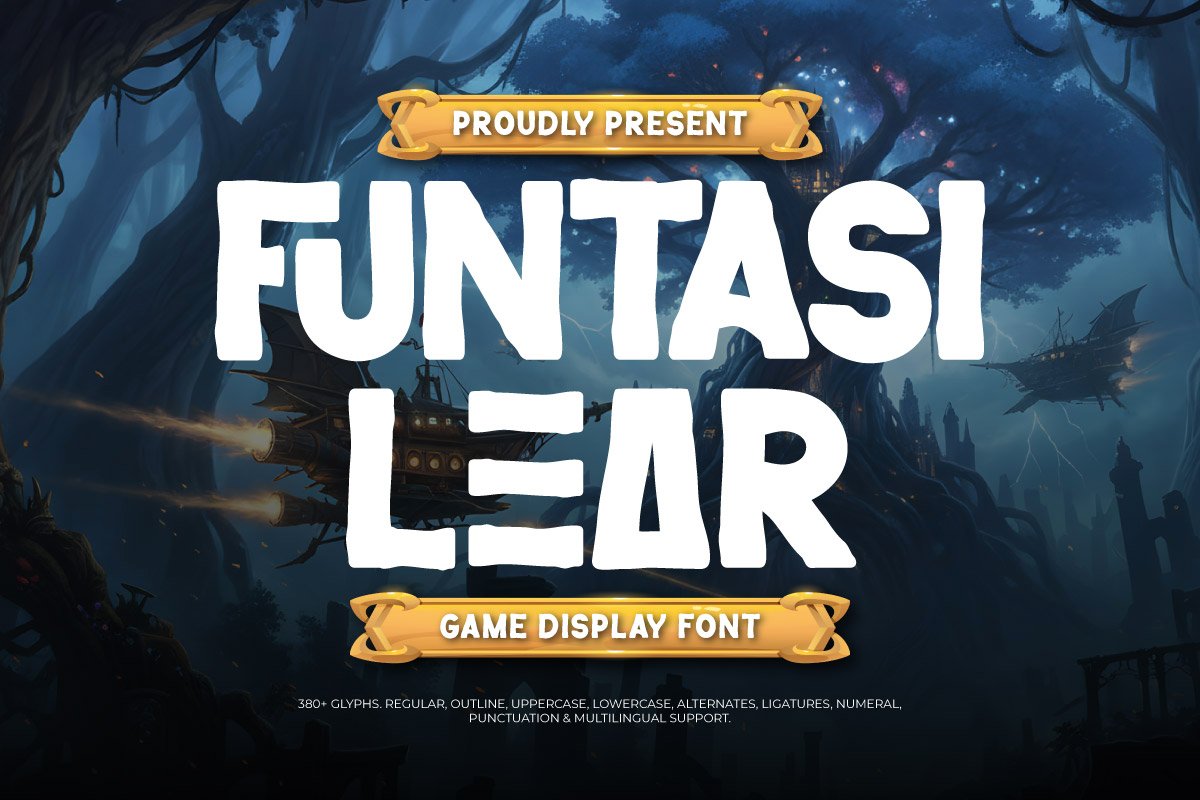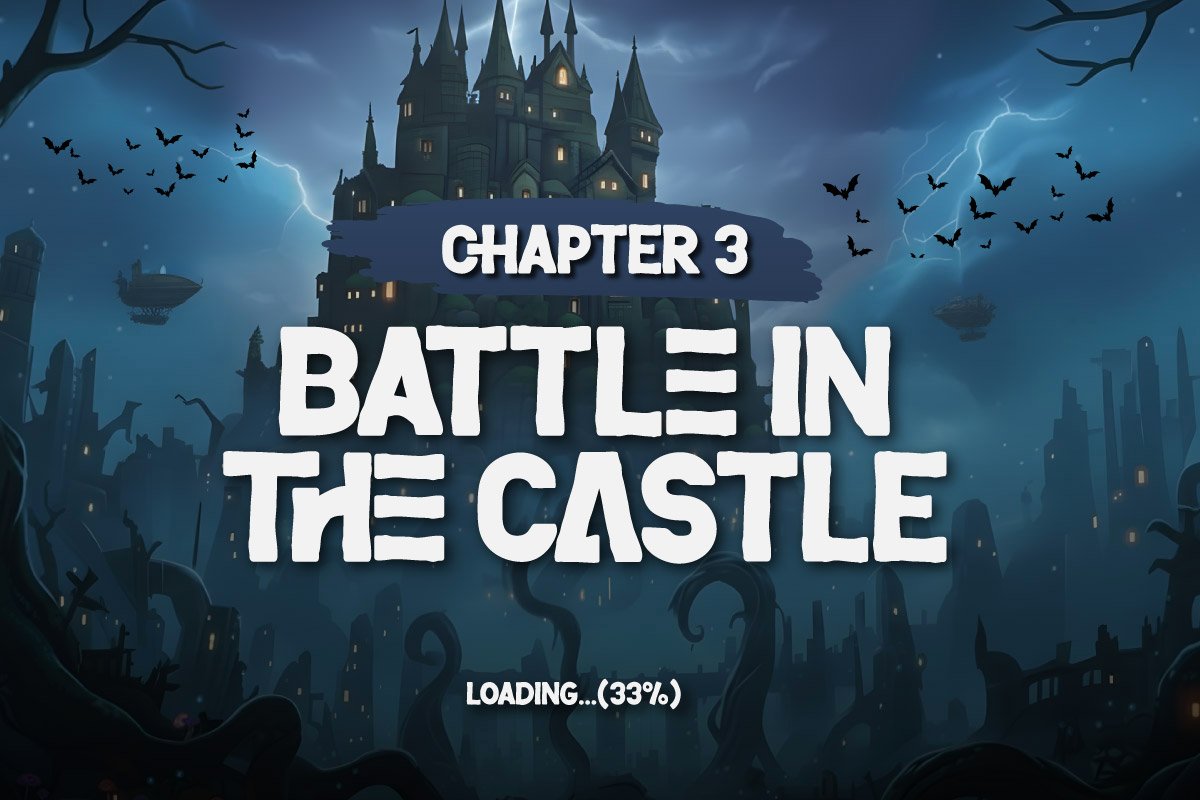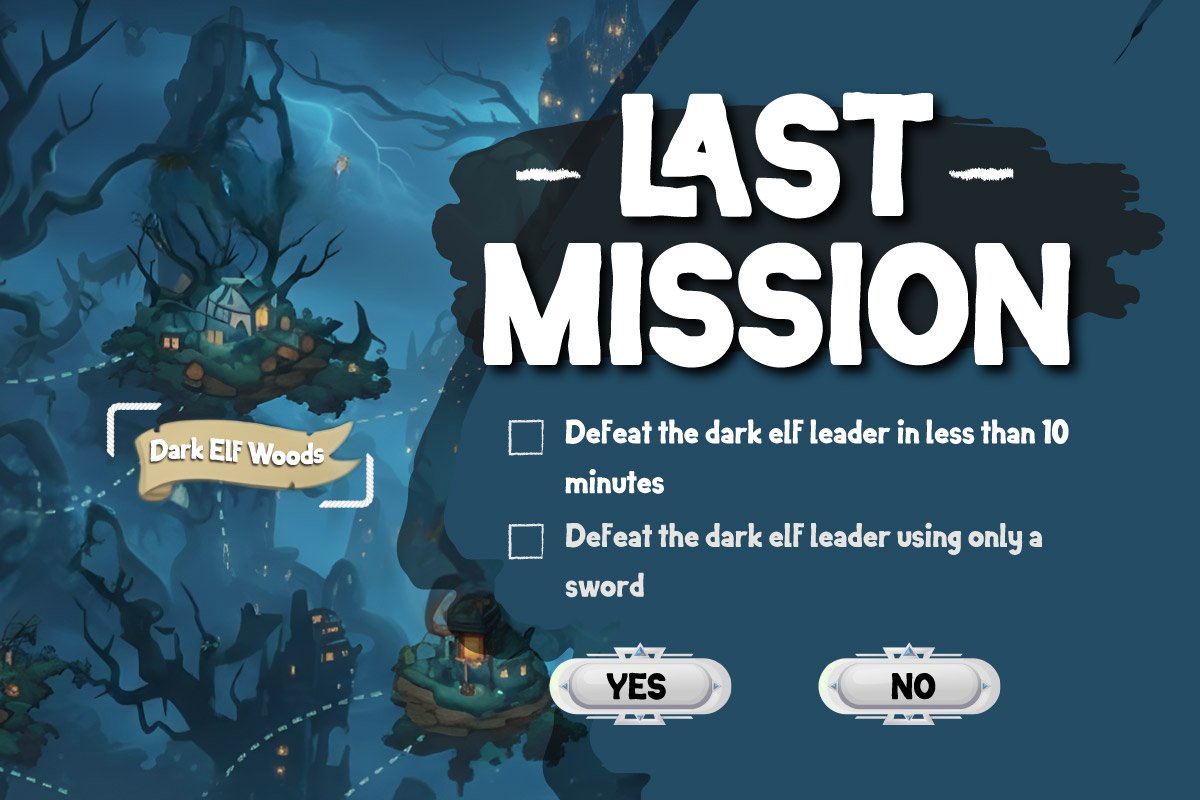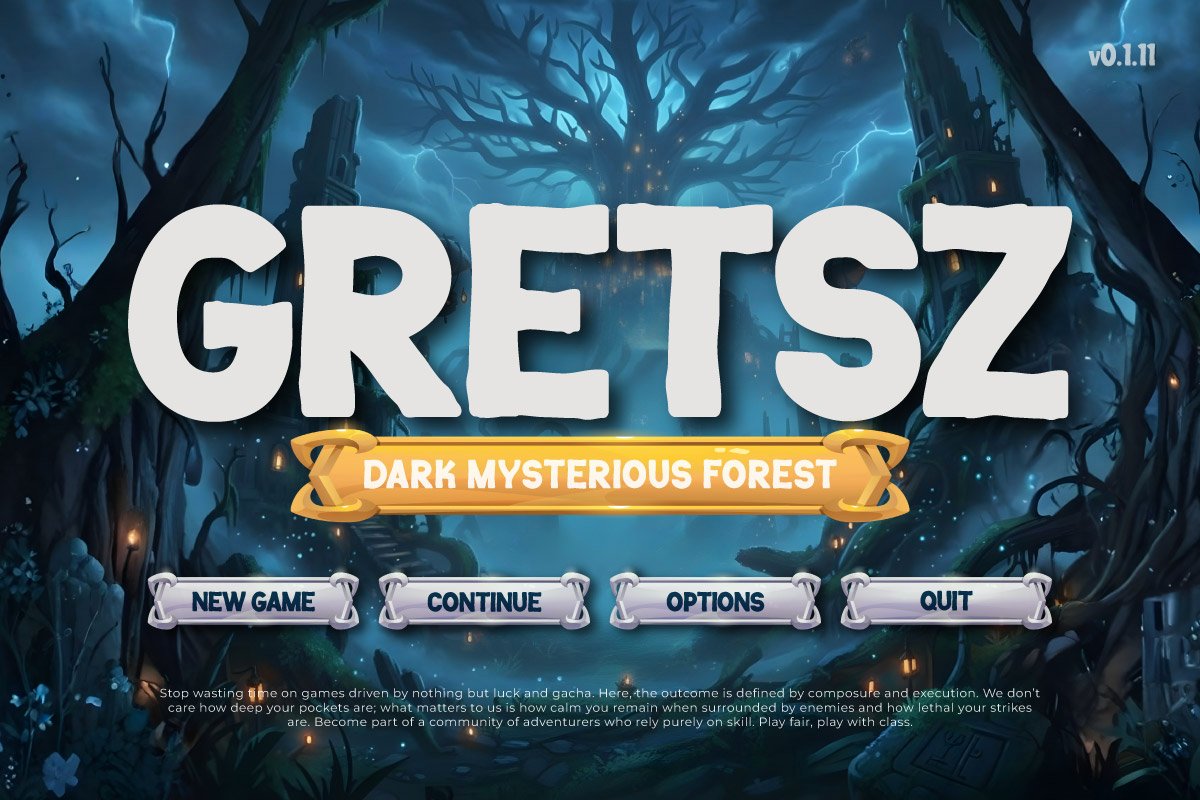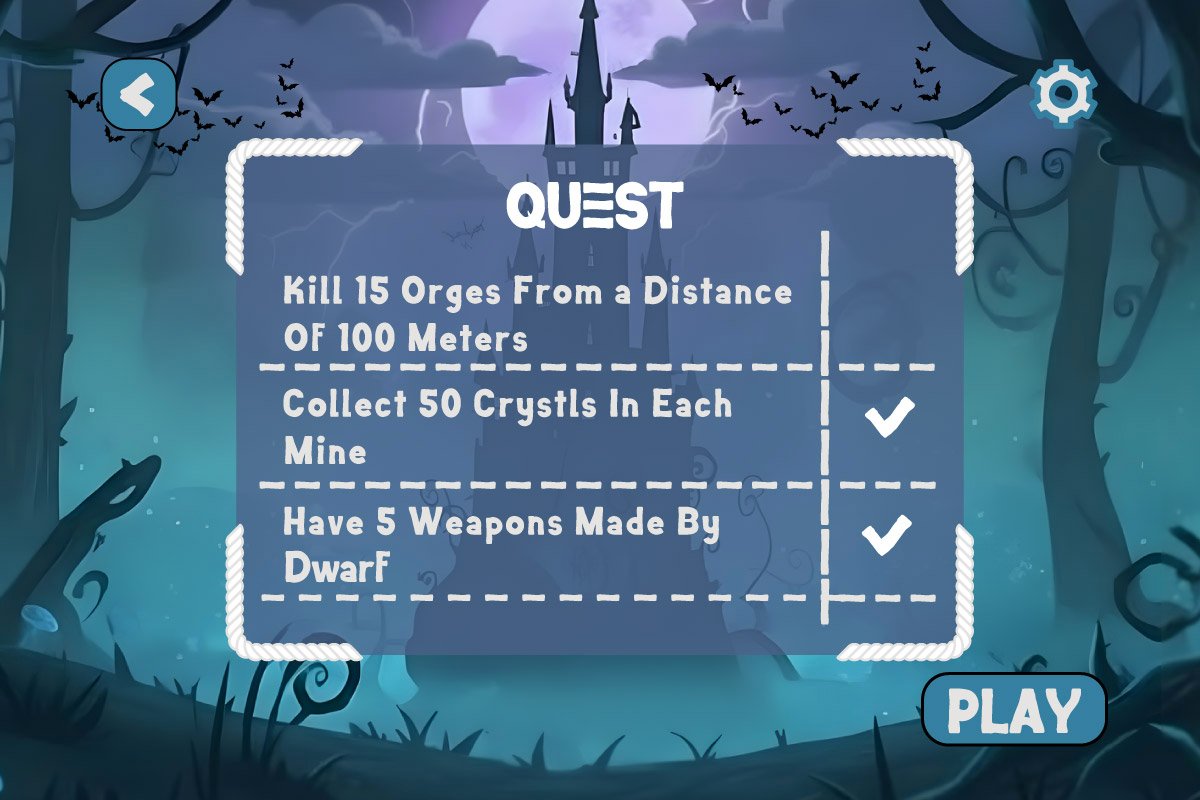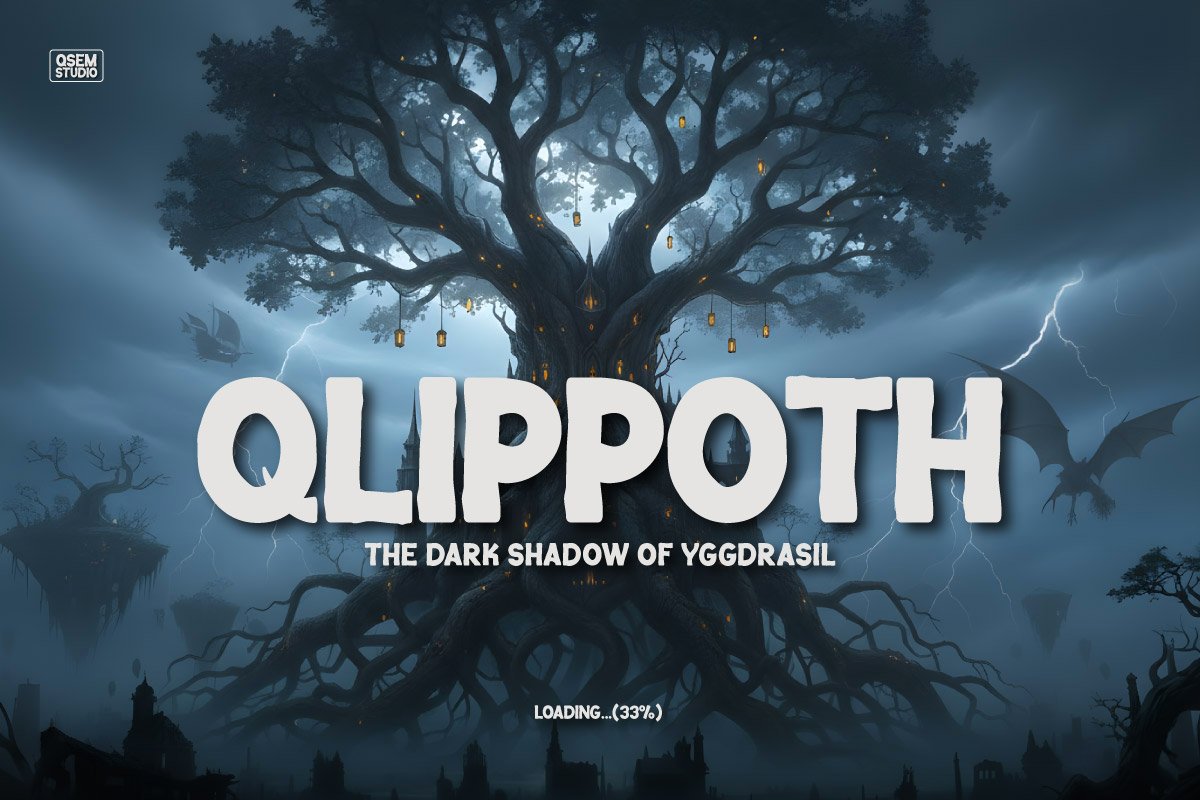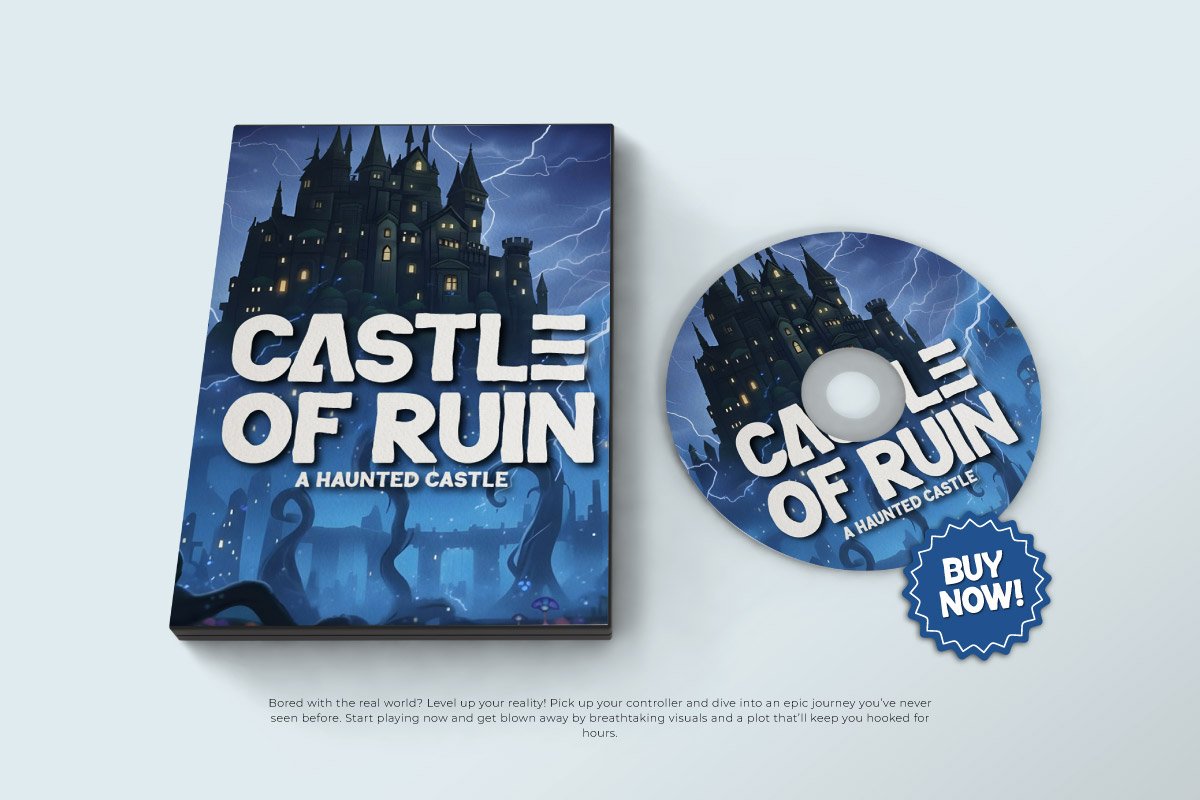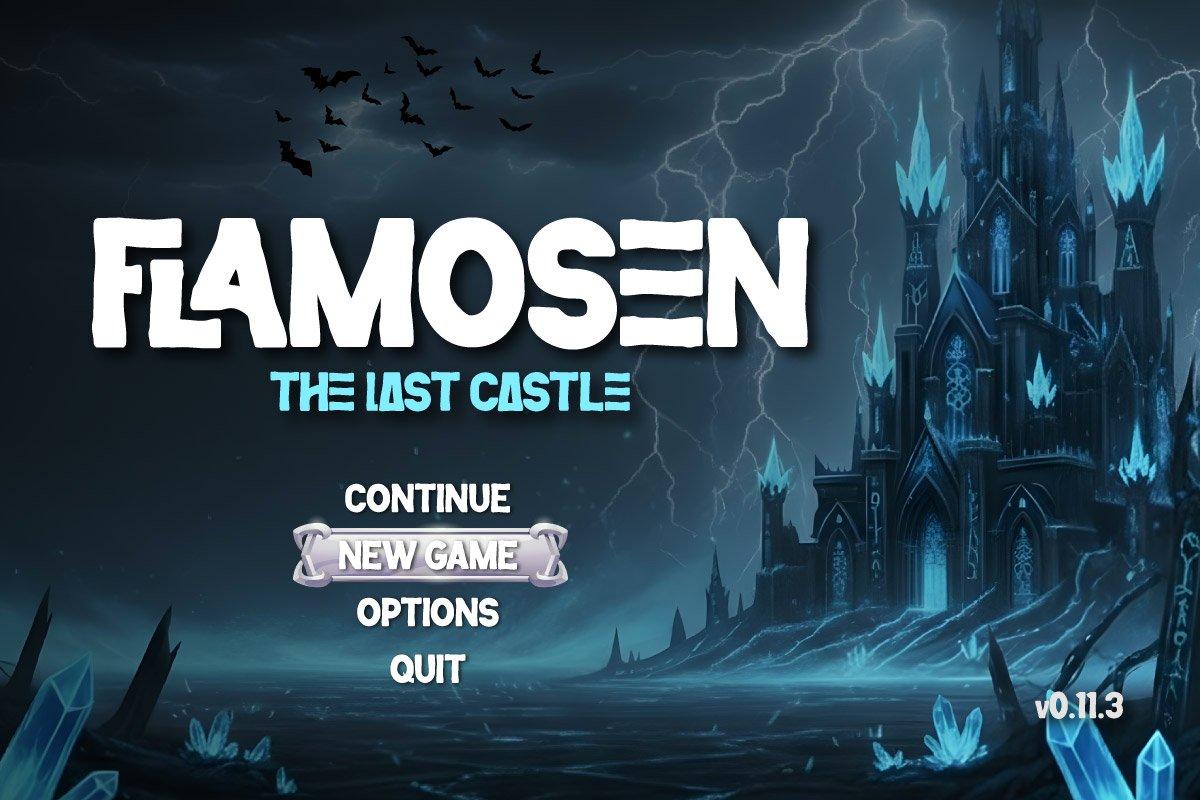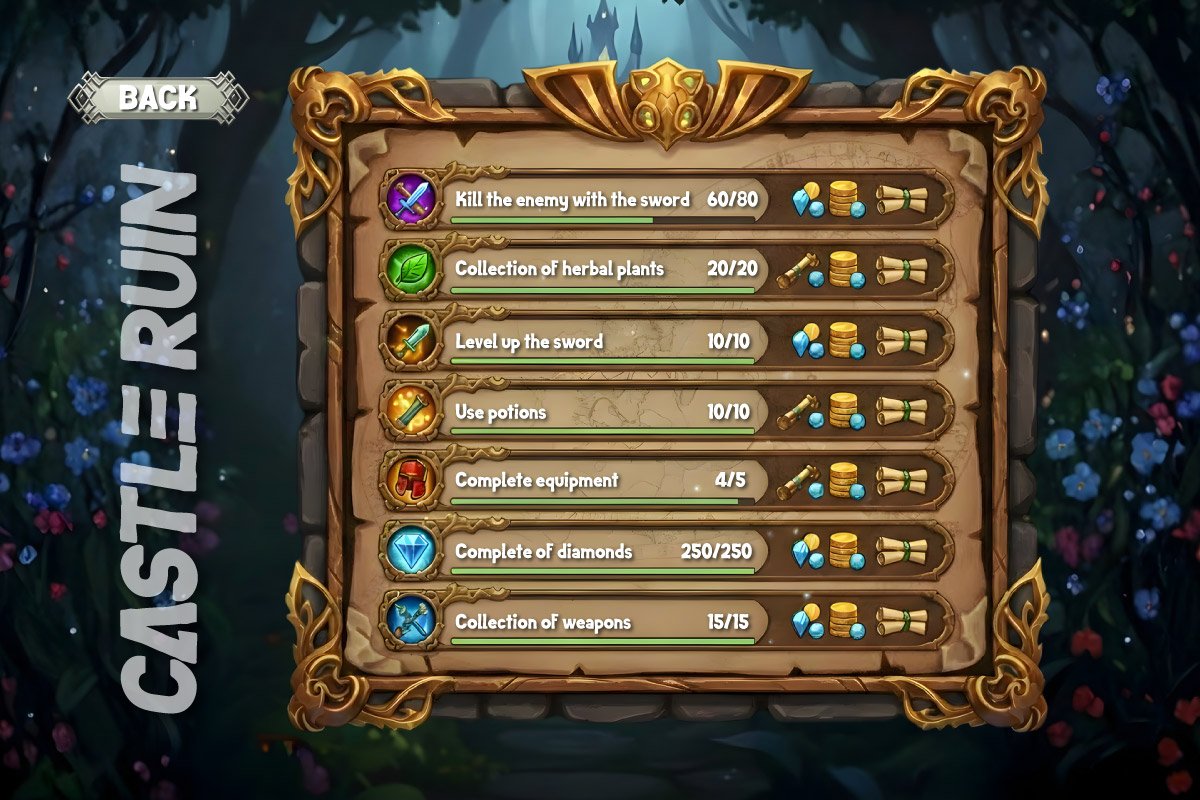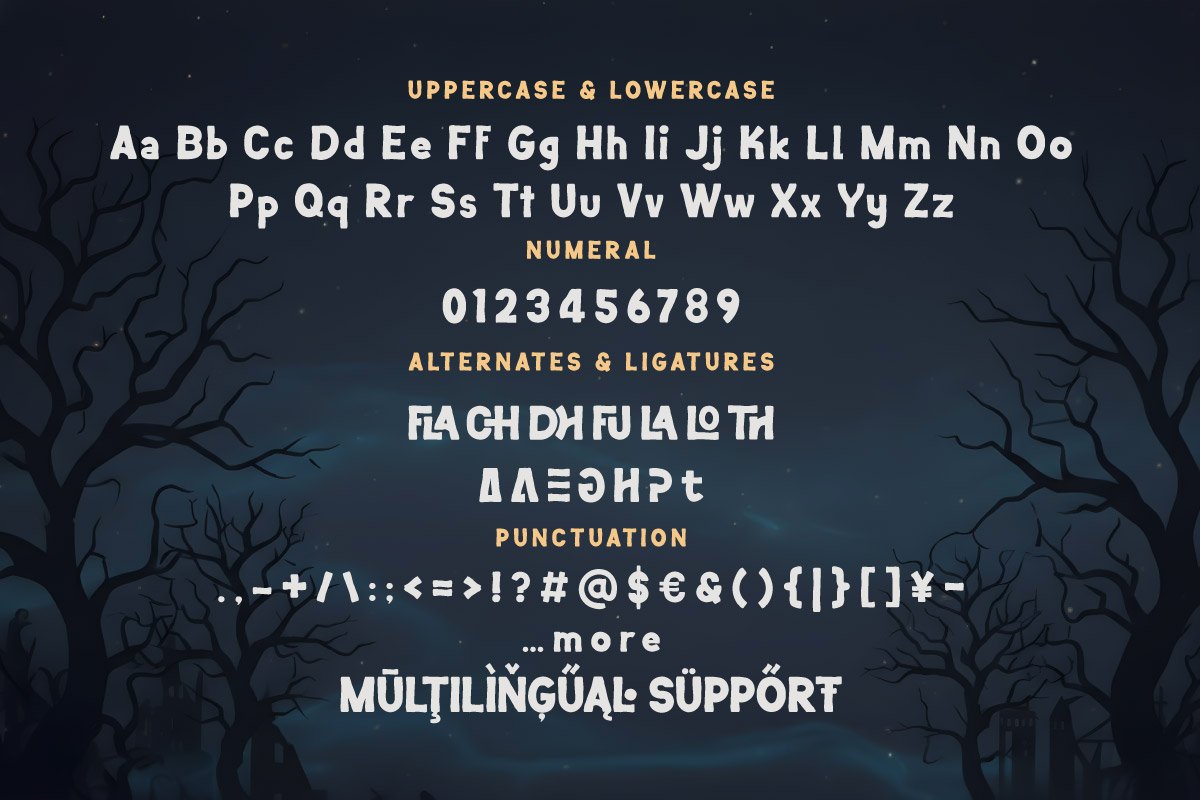
Funtasi Lear – Game Display Font
Funtasi Lear is a Game Display Font typeface designed for fantasy and adventure-themed design needs. It features bold and firm letterforms, providing a solid presence for main headlines and visual identities. Its characteristics are crafted to support projects related to RPG worlds, legendary elements, and other adventure narratives.
The solid structure ensures clear readability across various display sizes. The design combines dynamic curves with distinct angles, balancing decorative style and technical function. This makes it a practical choice for both game interfaces (Game UI) and print media requiring clear text visibility.
As a Fantasy Game Font, Funtasi Lear is well-suited for game titles, promotional posters, event banners, and branding materials. Its ability to emphasize main text helps clarify the visual hierarchy within a design layout. This font offers a solution for designers needing typography with consistent and professional character for the entertainment and creative industries.